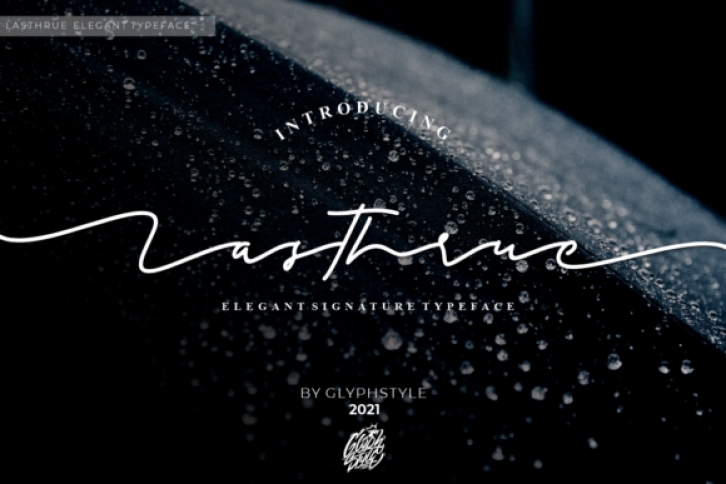
Lasthrue is a fashionable script font, that features a very delicate and classy look. Not too thin and not too thick, balanced and varied, this font was designed to enhance the beauty of your projects. Lasthrue is PUA encoded which means you can access all of the glyphs and swashes with ease!